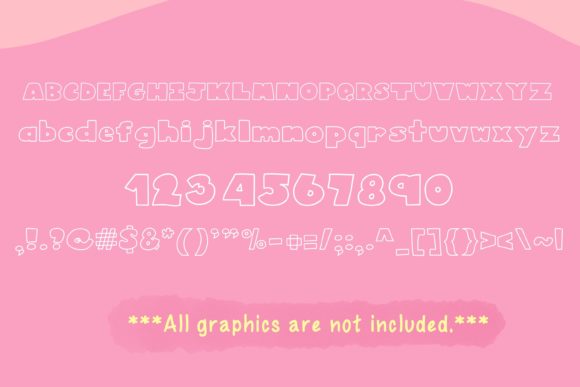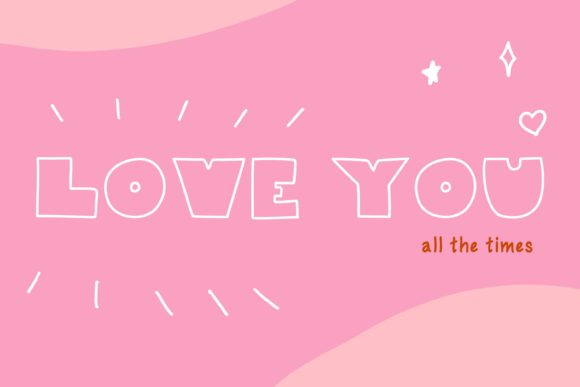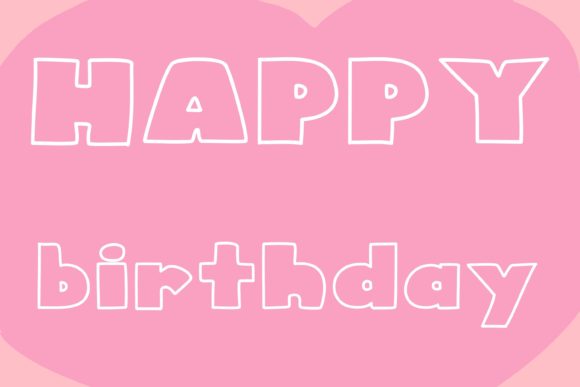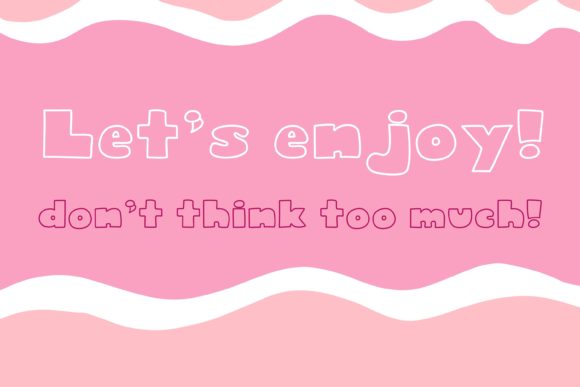
Introducing Chubbily Font: The Ultimate Choice for Fun and Playful Designs
Are you looking for a font that can add a touch of fun and playfulness to your designs? Look no further than Chubbily Font! This incredibly fun and jolly outlined display font is perfect for children-themed designs, especially when combined with bright colors. In this article, we’ll take a closer look at Chubbily Font, its features, and how you can use it to create stunning designs that will capture the attention of your audience.
What is Chubbily Font?
Chubbily Font is a unique and playful font that is designed to bring a smile to your face. Its outlined style gives it a distinctive look that is both fun and modern. The font is perfect for designs that require a playful touch, such as children’s books, kids’ party invitations, and educational materials. With Chubbily Font, you can add a personal touch to your designs and make them stand out from the crowd.
Key Features of Chubbily Font
- Fun and Playful Design: Chubbily Font is designed to be fun and playful, making it perfect for children’s themed designs.
- Outlined Style: The font’s outlined style gives it a modern and distinctive look that will make your designs stand out.
- Easy to Read: Despite its playful design, Chubbily Font is easy to read, making it perfect for use in a variety of designs.
- Highly Versatile: Chubbily Font can be used in a variety of designs, from children’s books to party invitations and educational materials.
How to Use Chubbily Font in Your Designs
Using Chubbily Font in your designs is easy! Here are a few tips to get you started:
- Combine with Bright Colors: Chubbily Font looks amazing when combined with bright colors. Try pairing it with colors like pink, blue, and yellow to create a fun and playful design.
- Use in Children’s Designs: Chubbily Font is perfect for children’s designs, such as kids’ party invitations, children’s books, and educational materials.
- Experiment with Different Sizes: Chubbily Font looks great in a variety of sizes. Experiment with different sizes to find the one that works best for your design.
- Pair with Other Fonts: Chubbily Font can be paired with other fonts to create a unique and interesting design. Try pairing it with a sans-serif font for a modern look.
Benefits of Using Chubbily Font
There are many benefits to using Chubbily Font in your designs. Here are a few:
- Instantly Adds Fun and Playfulness: Chubbily Font instantly adds a touch of fun and playfulness to your designs.
- Perfect for Children’s Designs: Chubbily Font is perfect for children’s designs, making it a great choice for kids’ party invitations, children’s books, and educational materials.
- Highly Versatile: Chubbily Font can be used in a variety of designs, making it a great addition to your font library.
- Easy to Read: Despite its playful design, Chubbily Font is easy to read, making it perfect for use in a variety of designs.
In conclusion, Chubbily Font is a fun and playful font that is perfect for children’s themed designs. Its outlined style and highly versatile design make it a great choice for a variety of designs. With its ease of use and instant fun and playfulness, Chubbily Font is a great addition to any designer’s font library. So why not give it a try and see how it can add a touch of fun and playfulness to your designs?
Tips and Tricks for Using Chubbily Font
Here are a few tips and tricks for using Chubbily Font:
- Use it for Headings: Chubbily Font is perfect for use in headings and titles.
- Experiment with Different Colors: Chubbily Font looks amazing when combined with bright colors. Try experimenting with different colors to find the one that works best for your design.
- Pair it with Other Fonts: Chubbily Font can be paired with other fonts to create a unique and interesting design.